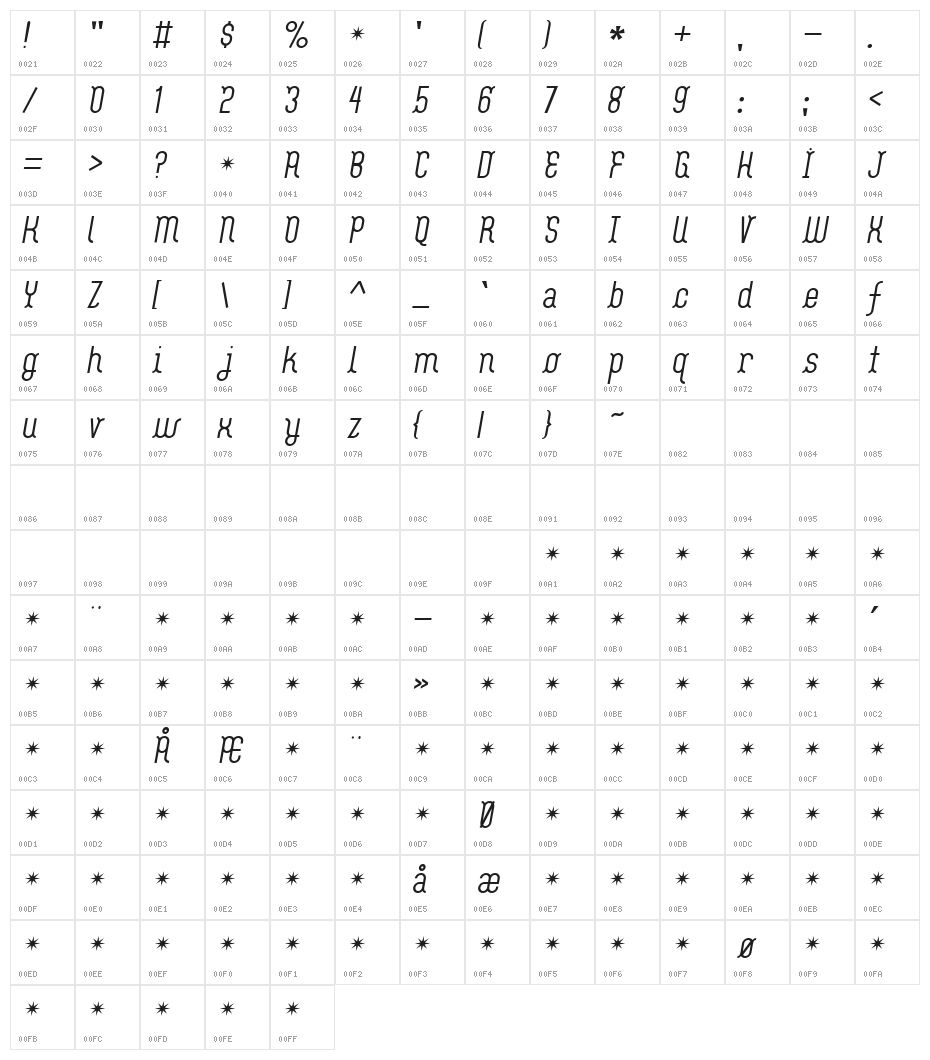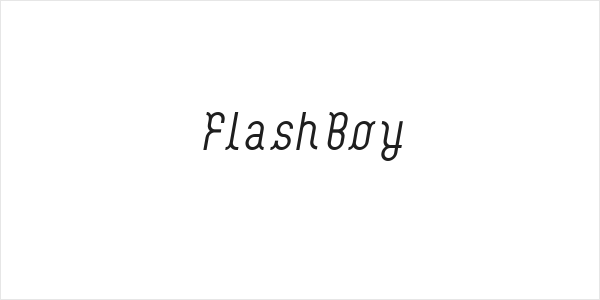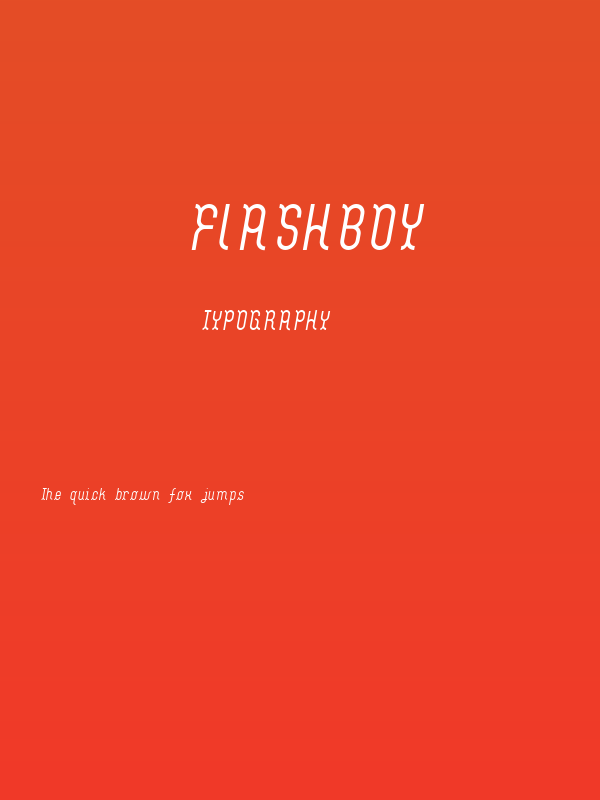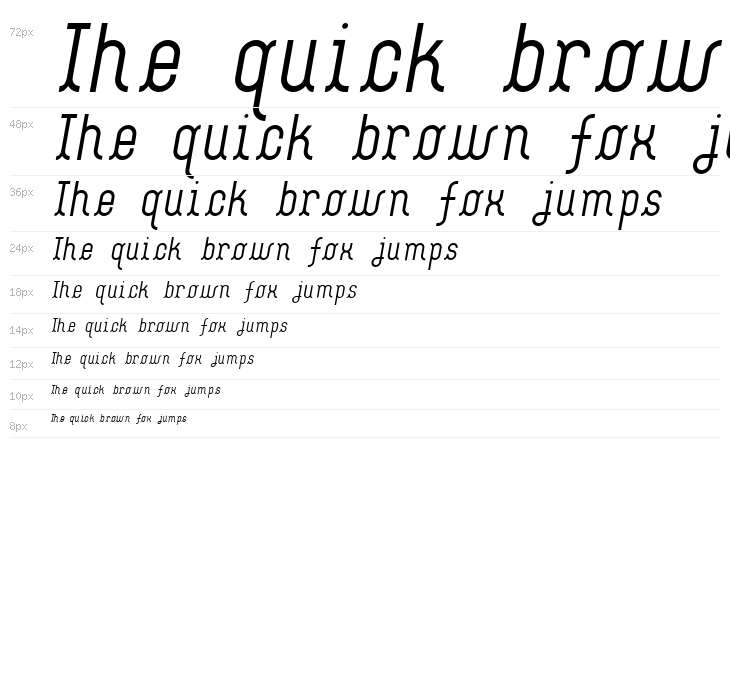
FlashBoy Font
FlashBoy Description
This font features a distinctive, modern style with a slight slant, giving it a dynamic and energetic appearance. The characters are elongated with a consistent stroke width, providing a clean and streamlined look. The uppercase letters have a unique flair, with subtle curves and angles that add a touch of elegance. The lowercase letters maintain a similar style, ensuring readability while retaining the font's characteristic charm. Numbers and special characters are designed to match the overall aesthetic, making this font versatile for various applications.
| Proposed Projects | Ideal for branding, advertising, and editorial design where a modern and energetic look is desired. |